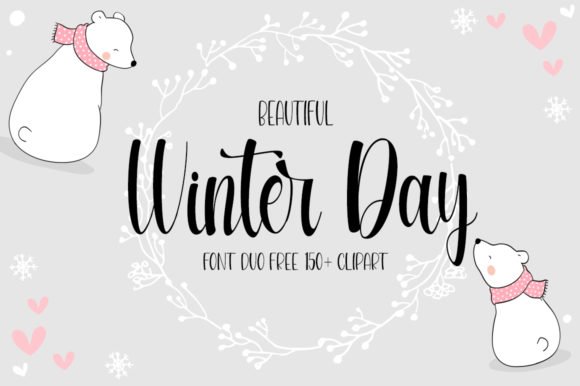
Transform Your Designs with the Beautiful Winter Day Font
There’s something magical about the first snowfall of the season. The way the flakes gently fall, casting a serene silence over the world, is the perfect inspiration for a creative moment. As you sip your hot coffee, gazing out the window at the winter wonderland, you feel the urge to create something beautiful – a wedding invitation, a social media post, or perhaps a piece of stationery art. And that’s where the Beautiful Winter Day Font comes in – a modern calligraphy font that will help you bring your winter wonderland dreams to life.
With the Beautiful Winter Day Font, you can create stunning, hand-made typography in an instant. Its incredibly versatile style makes it perfect for designers looking to add a touch of elegance and sophistication to their projects. Whether you’re a professional designer or a hobbyist, this font is sure to become a valuable addition to your toolkit.
Beautiful Winter Day Font Key Features
- Font Style: Script, Handwritten, and Elegant font styles with a winter theme.
- Unique Characteristics: Features intricate and delicate designs, perfect for winter-themed designs, invitations, and greeting cards.
- Character Set: Includes a wide range of characters, including uppercase and lowercase letters, numbers, and punctuation marks.
Designer Review: Beautiful Winter Day Font
At first glance, the Beautiful Winter Day Font has a certain charm to it ✨. The subtle winter elements woven into the design give it a unique, seasonal feel that could work well for holiday-themed projects or winter-themed branding. The font is also relatively easy to read, making it suitable for body text or short passages.
The font’s use of gentle, rounded shapes and soft lines adds a touch of warmth and coziness, which could be beneficial for creating inviting and welcoming designs ✨. Additionally, the font comes in a range of weights, allowing designers to choose the perfect level of subtlety for their project.
- ⚠️ The font may be too delicate for use in headlines or titles, where a bolder font is often preferred.
- ⚠️ The winter elements may become distracting or overpowering if used in large quantities, potentially detracting from the overall message of the design.
- ⚠️ The font’s unique style may not be suitable for all audiences, particularly those who prefer more modern or minimalist designs.
Overall, the Beautiful Winter Day Font is a lovely addition to any designer’s toolkit, particularly for projects with a winter or holiday theme. However, it’s essential to use it thoughtfully and in moderation to avoid overwhelming the design.
Use the Beautiful Winter Day Font to create winter-themed designs, such as holiday cards or winter wonderland invitations.
Use the Beautiful Winter Day Font to add a touch of winter charm to your designs, such as snowflake patterns or winter landscapes.
Use the Beautiful Winter Day Font to create winter-themed presentations or documents, such as holiday reports or winter-themed newsletters.
The Beautiful Winter Day Font is perfect for:
- Winter-themed designs and graphics.
- Holiday cards and invitations.
- Winter wonderland-inspired designs.
- Seasonal marketing materials.
Remember to experiment with different font sizes, colors, and combinations to get the most out of the Beautiful Winter Day Font.
Alternatives to Beautiful Winter Day Font
Lobster Font is a cursive, handwritten font that adds a touch of elegance to any design. It’s perfect for creating invitations, wedding cards, and other special occasion materials. When to use: Use Lobster Font for designs that require a romantic and whimsical feel.
Comparison to Beautiful Winter Day Font: While Beautiful Winter Day Font has a more rustic and vintage feel, Lobster Font is more elegant and sophisticated. Lobster Font is ideal for designs that require a more refined and luxurious look.
What is the recommended font size and line height for using the Beautiful Winter Day Font?
For optimal readability, we recommend using the Beautiful Winter Day Font at a size between 12pt and 18pt, with a line height of 1.2 to 1.5 times the font size. This will help ensure that your text is clear and easy to read, while also maintaining a visually appealing layout.